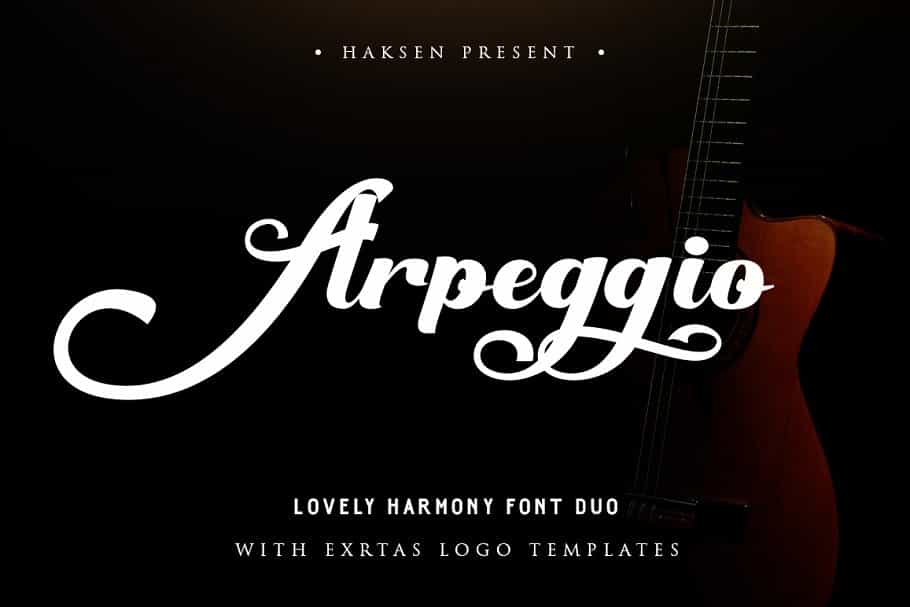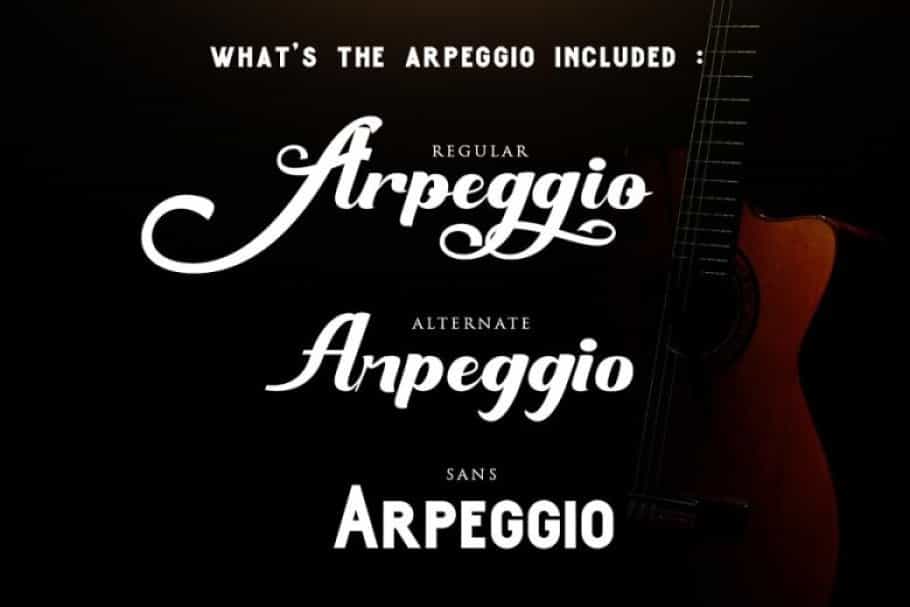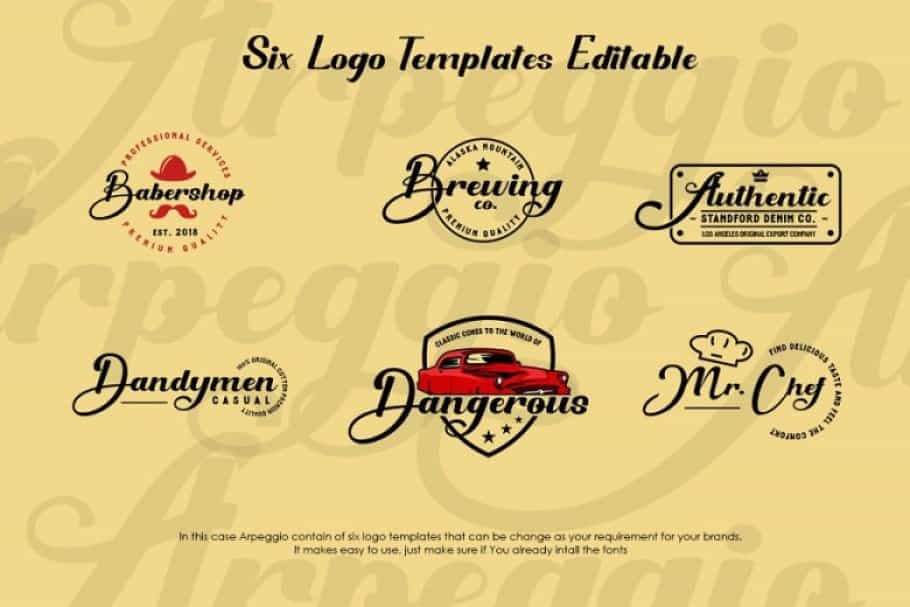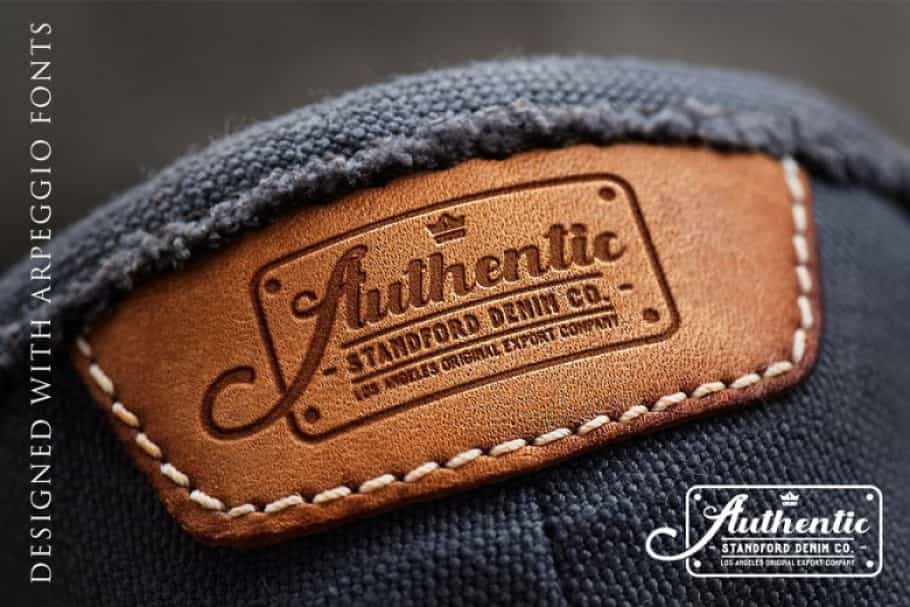
Discover Arpeggio Font Duo, part of the Calligraphy collection—a versatile and unique font perfect for adding a personal touch to your projects. Download it for free and enjoy crafting designs with style, from invitations to social media posts. This font is available exclusively for personal use, giving you the freedom to create without limits. Unlock your creativity with Arpeggio Font Duo today!
Introducing Arpeggio Script Font. It is made and shared by Haksen. Arpeggio – The new fresh handmade script and sans font. An excellent choice for greeting cards, branding materials, business cards, quotes, posters and many other things. Is this font suitable for all brand?